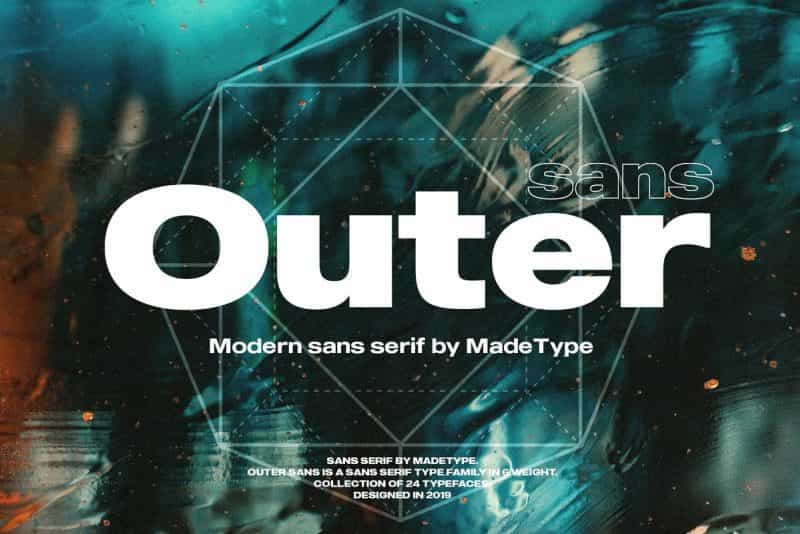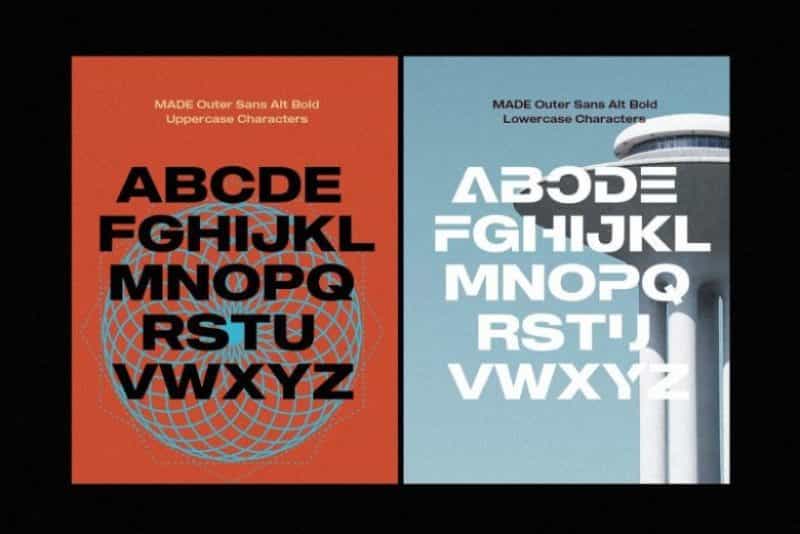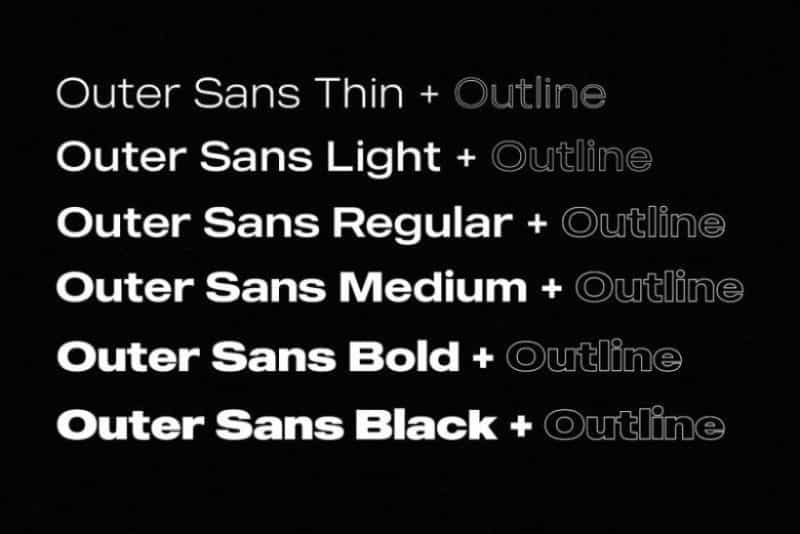
Meet MADE Outer Sans Serif Family. MADE Outer Sans is a contemporary type system of 24 types of fonts. The Outer Sans type family will perfect for many project: fashion, invitations, music cover, game poster, cinema, book, magazines, logo, branding, photography, wedding invitations, quotes, blog header, poster, advertisements, t-shirt, and so on.